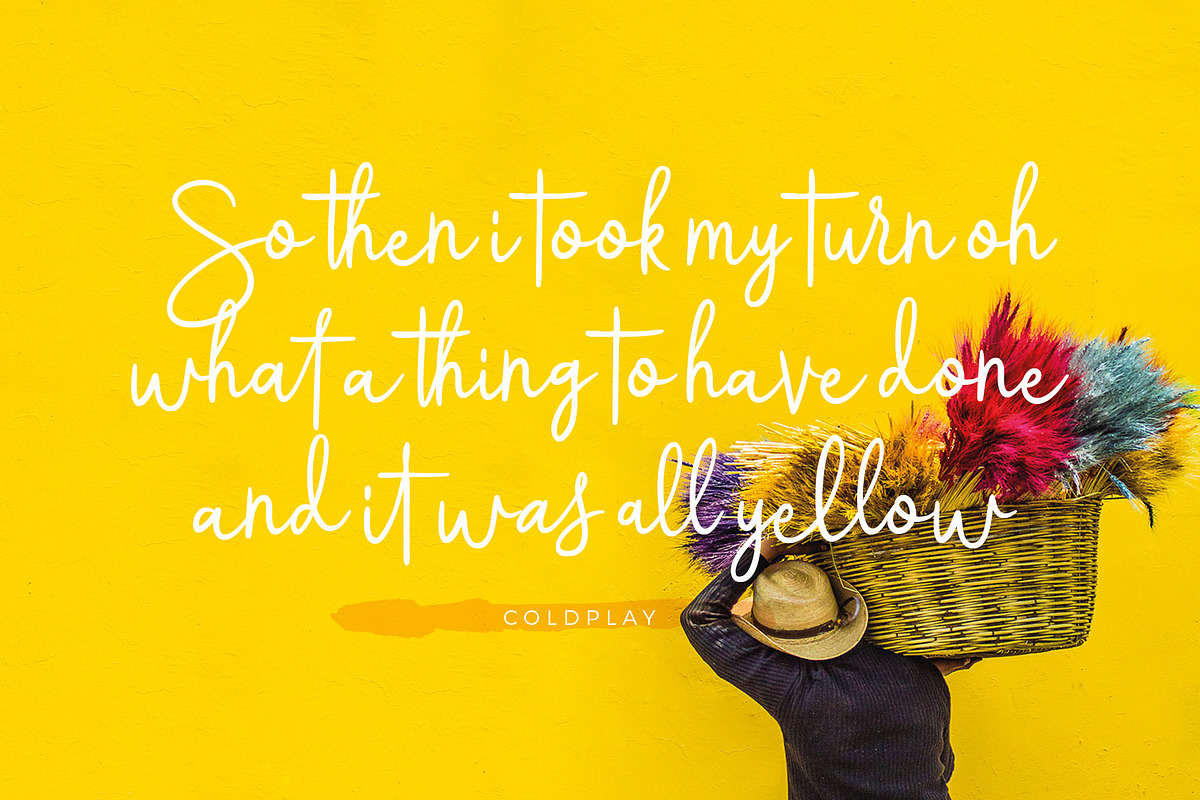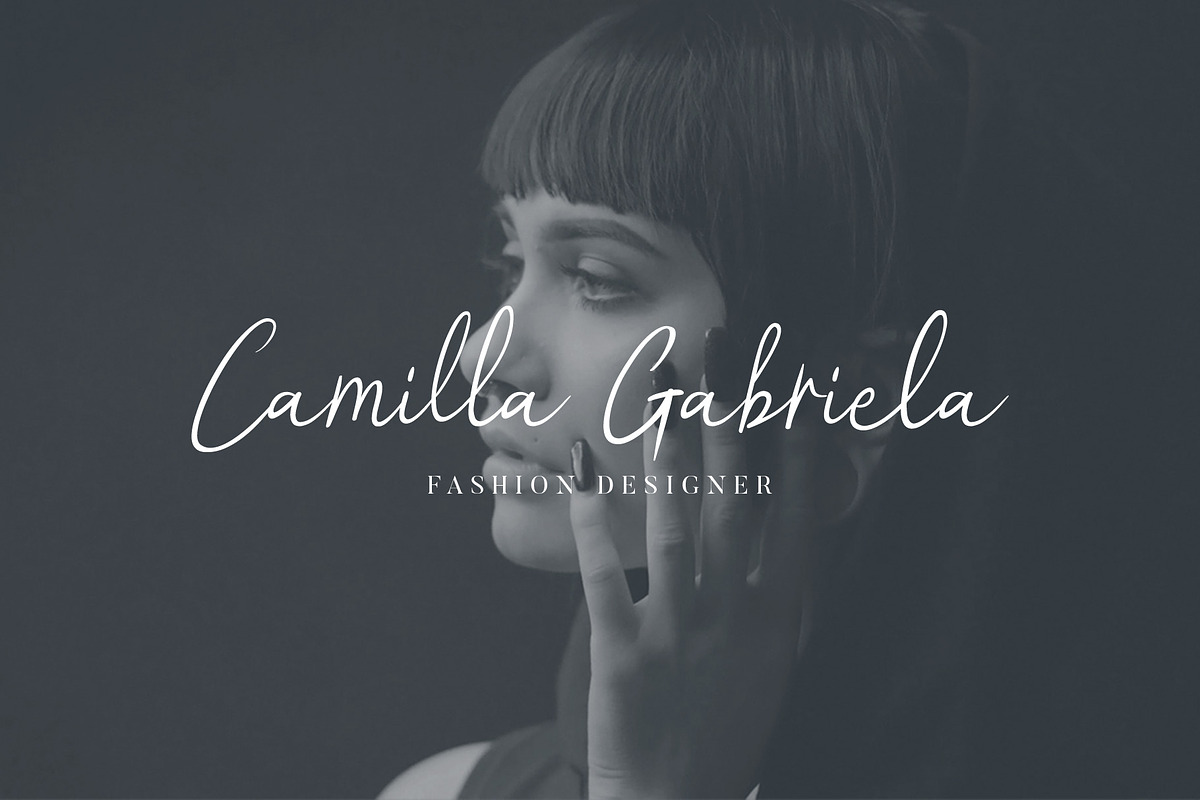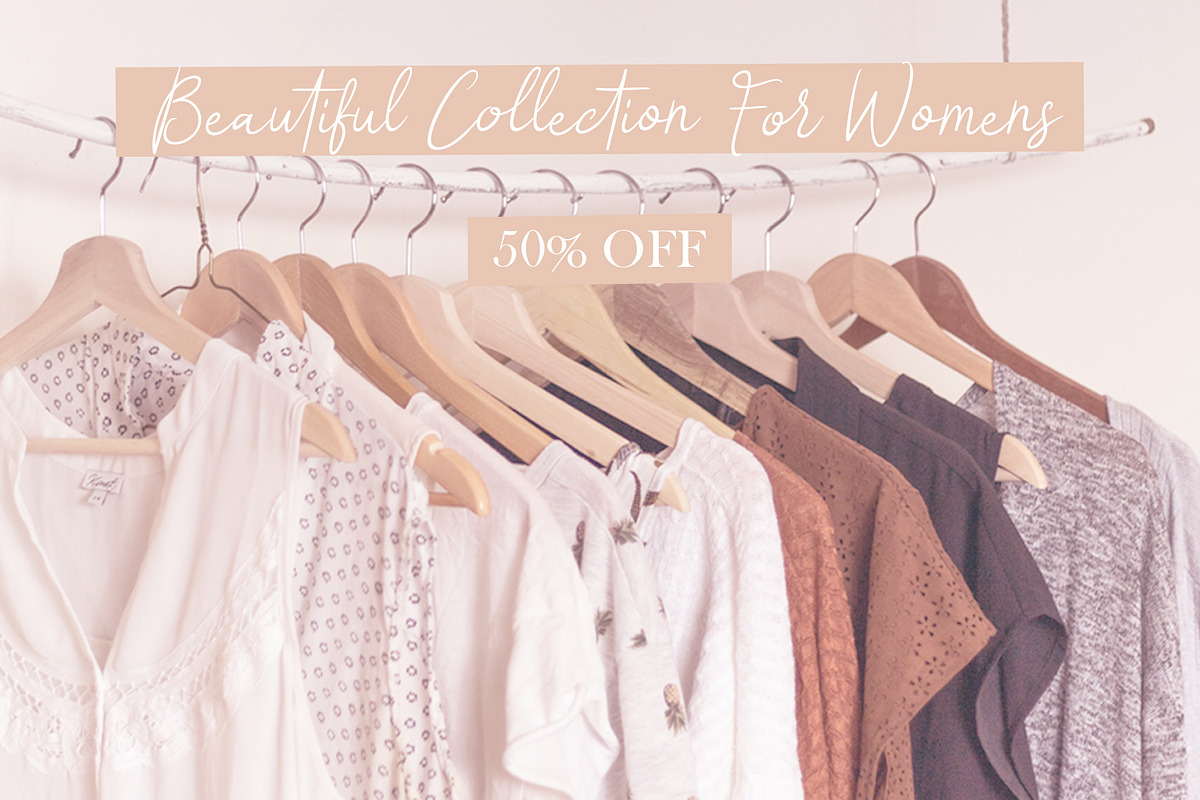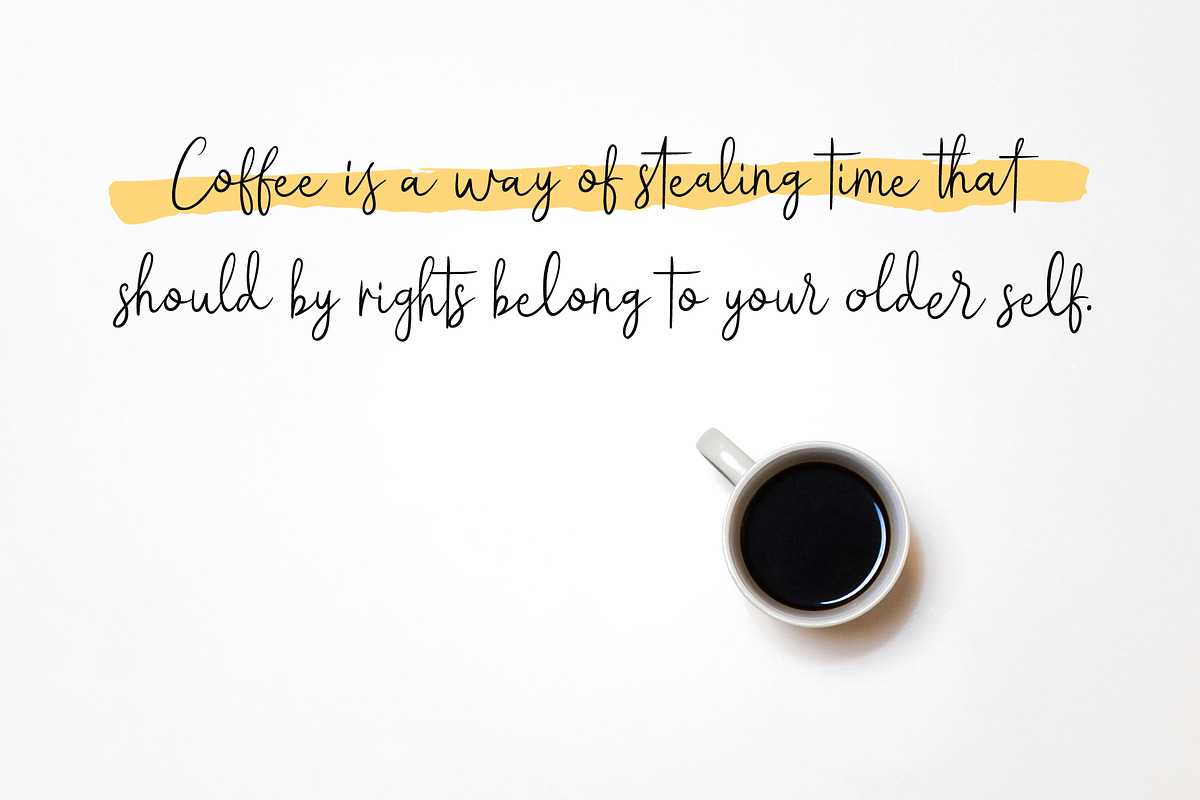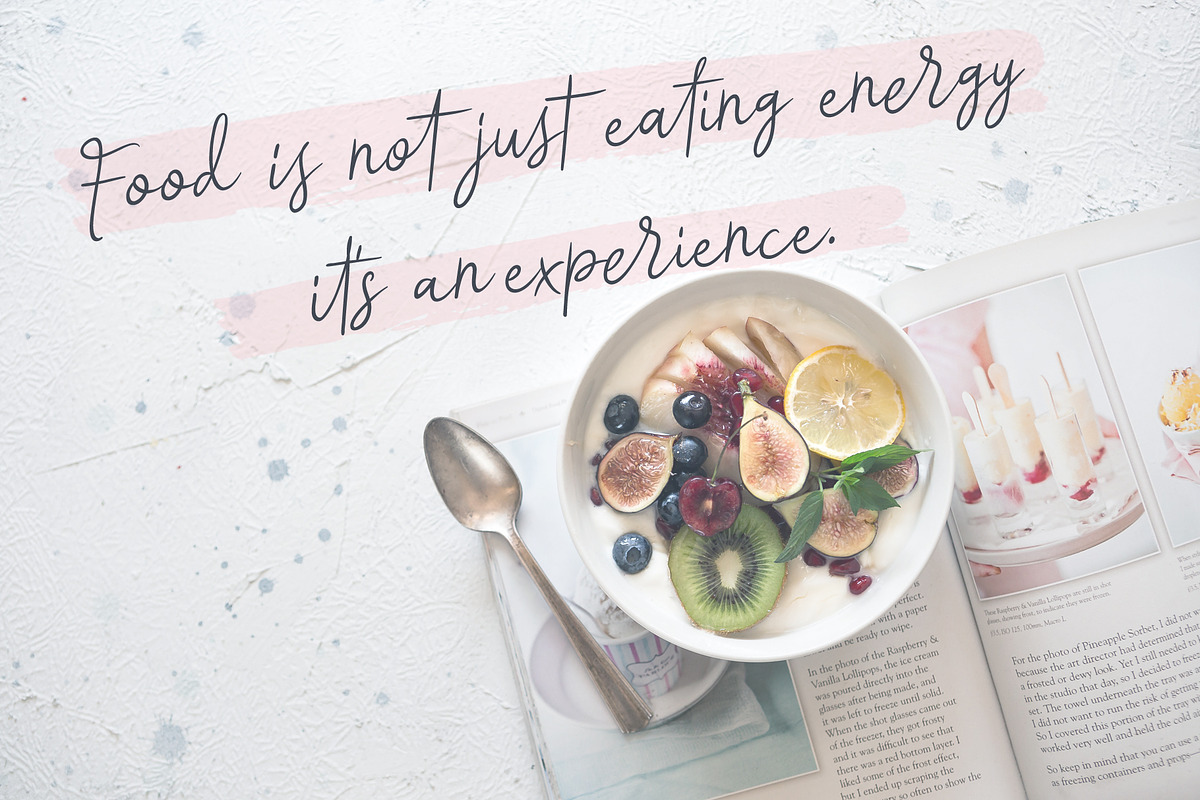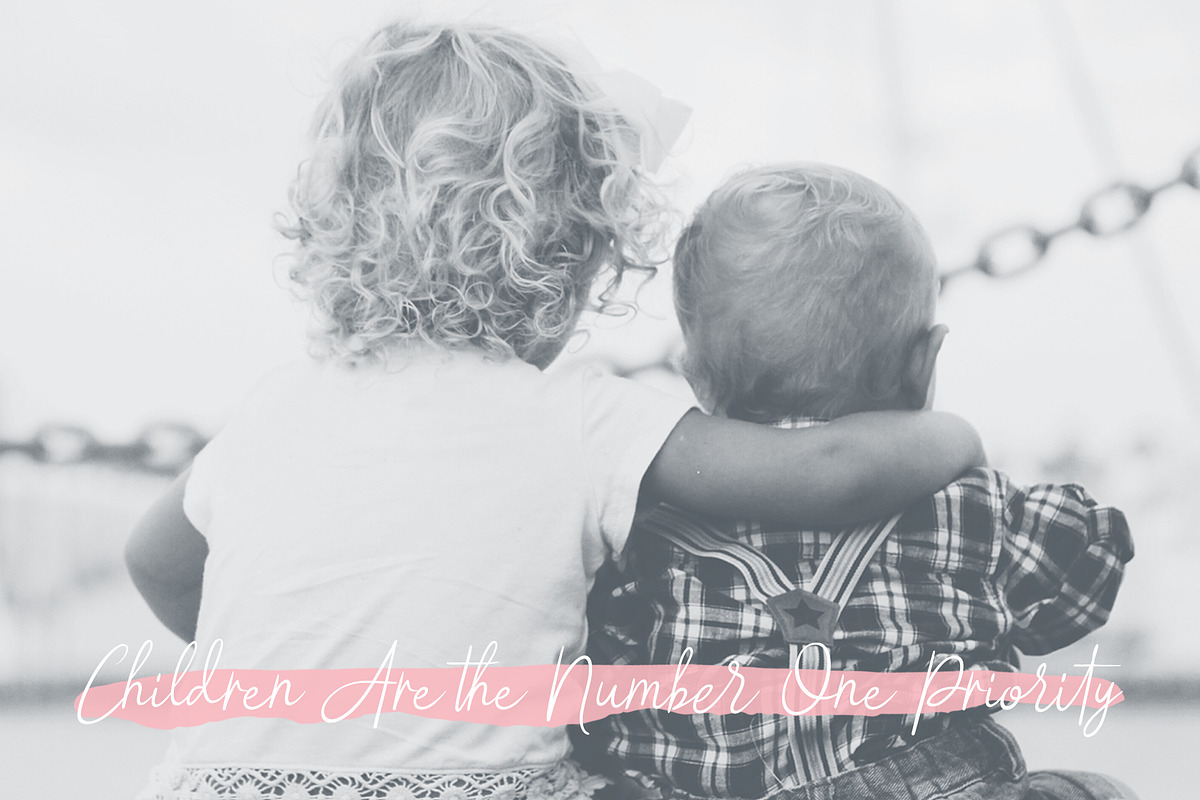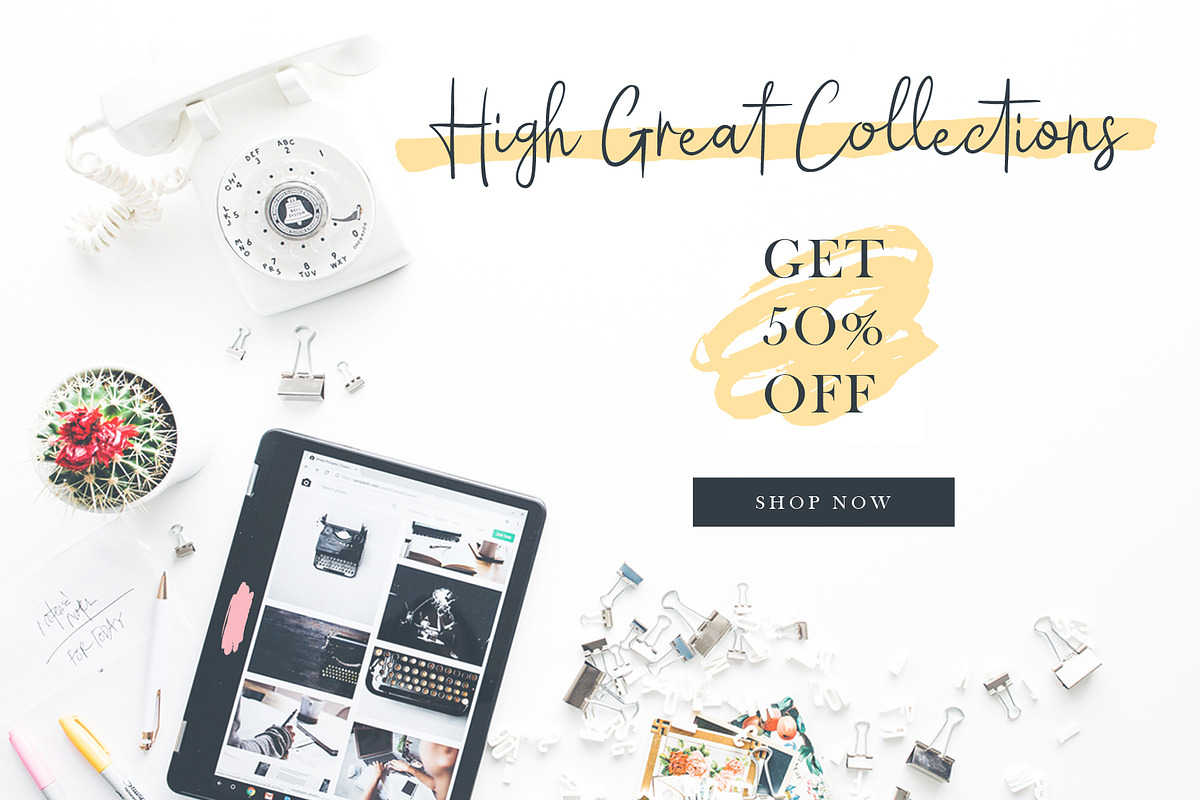
Scarlet Whaleys Font
Scarlet Whaleys is a signature brush script font. Scarlet Whaleys a very good for letterhead, poster, logotype, apparel design, label, website header, fashion design, name tag, quotes, t-shirts, packaging and any more.
Uppercase & lowercase
Number & punctuation symbols
International characters (Multilingual)